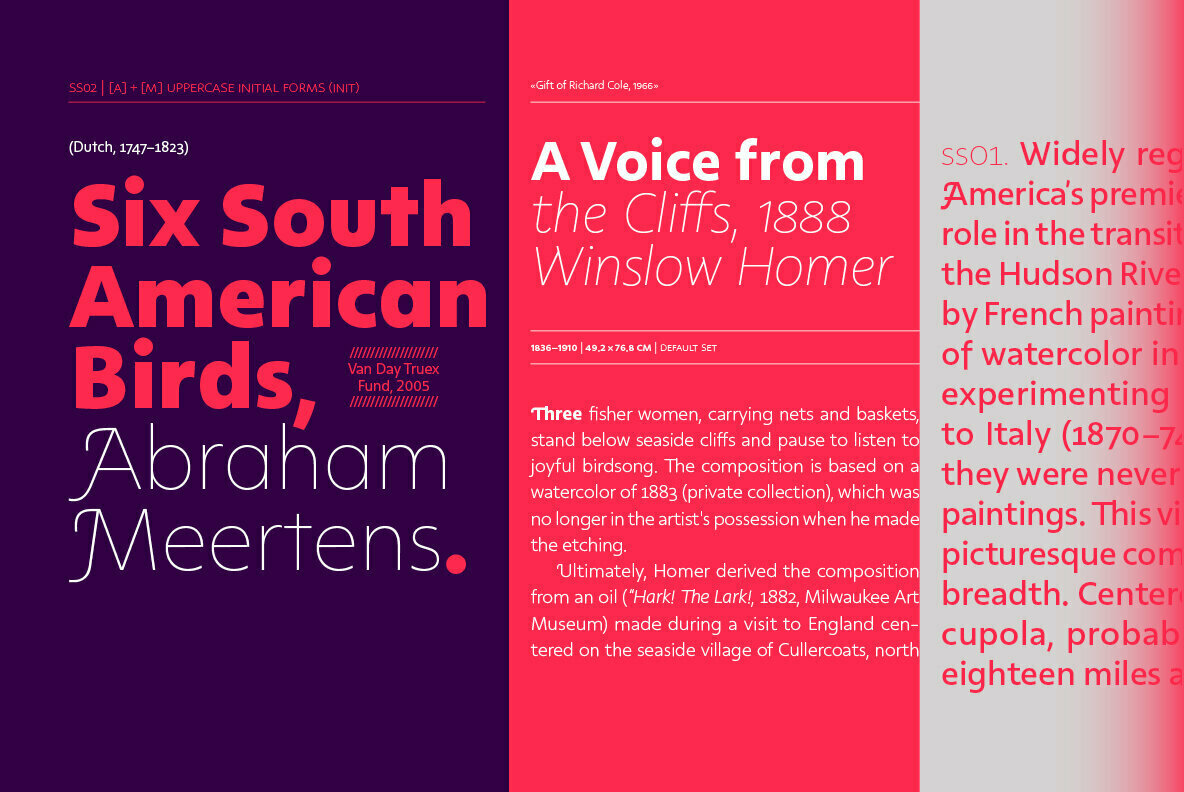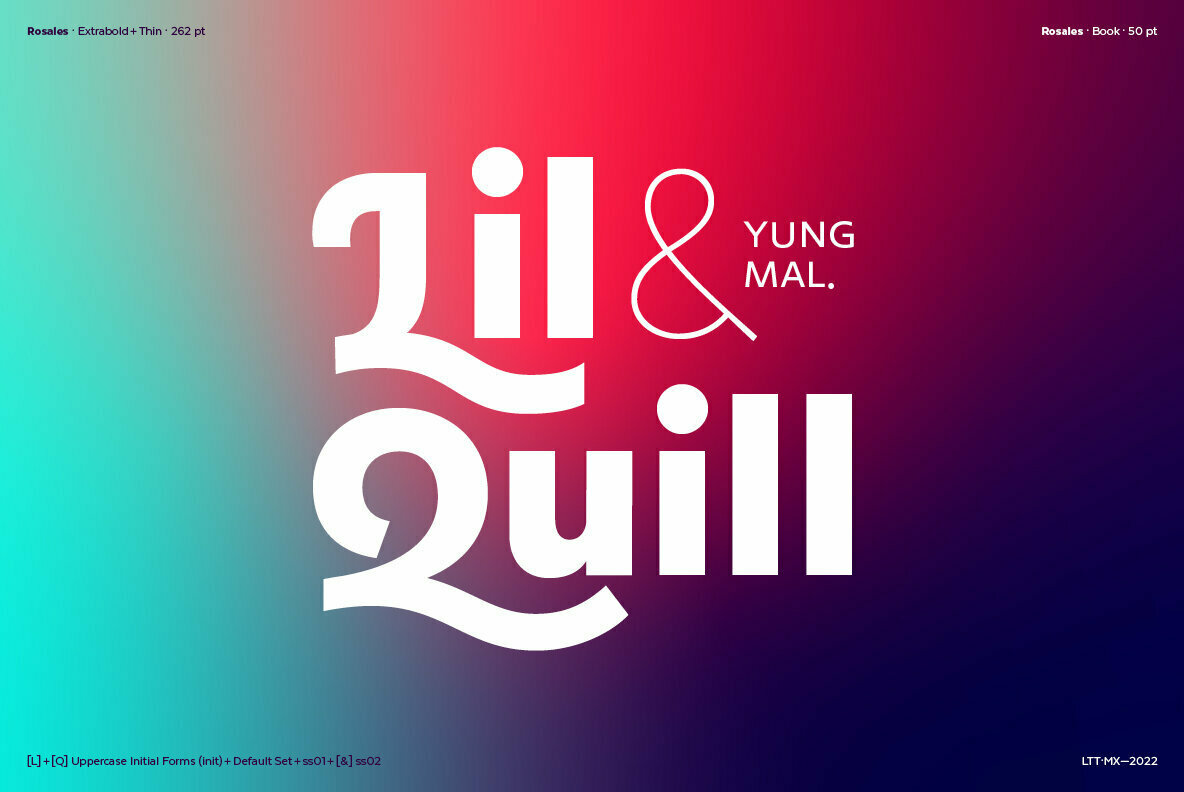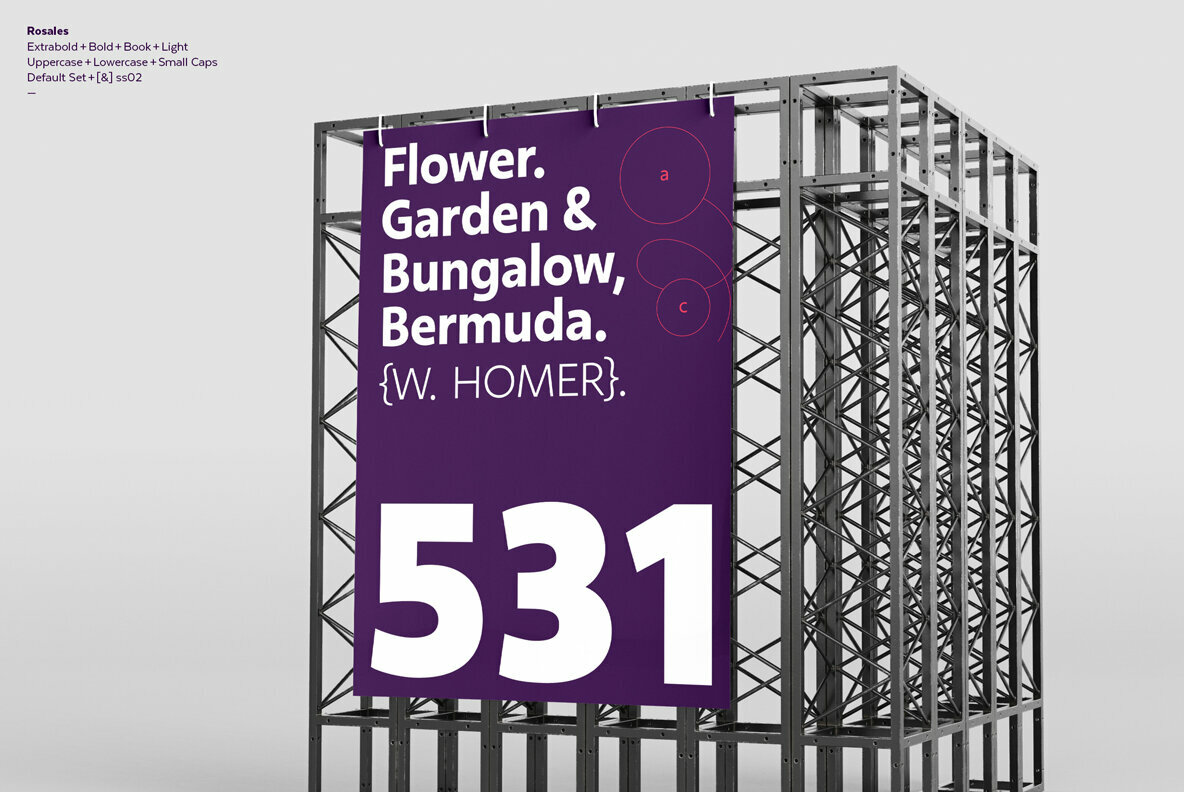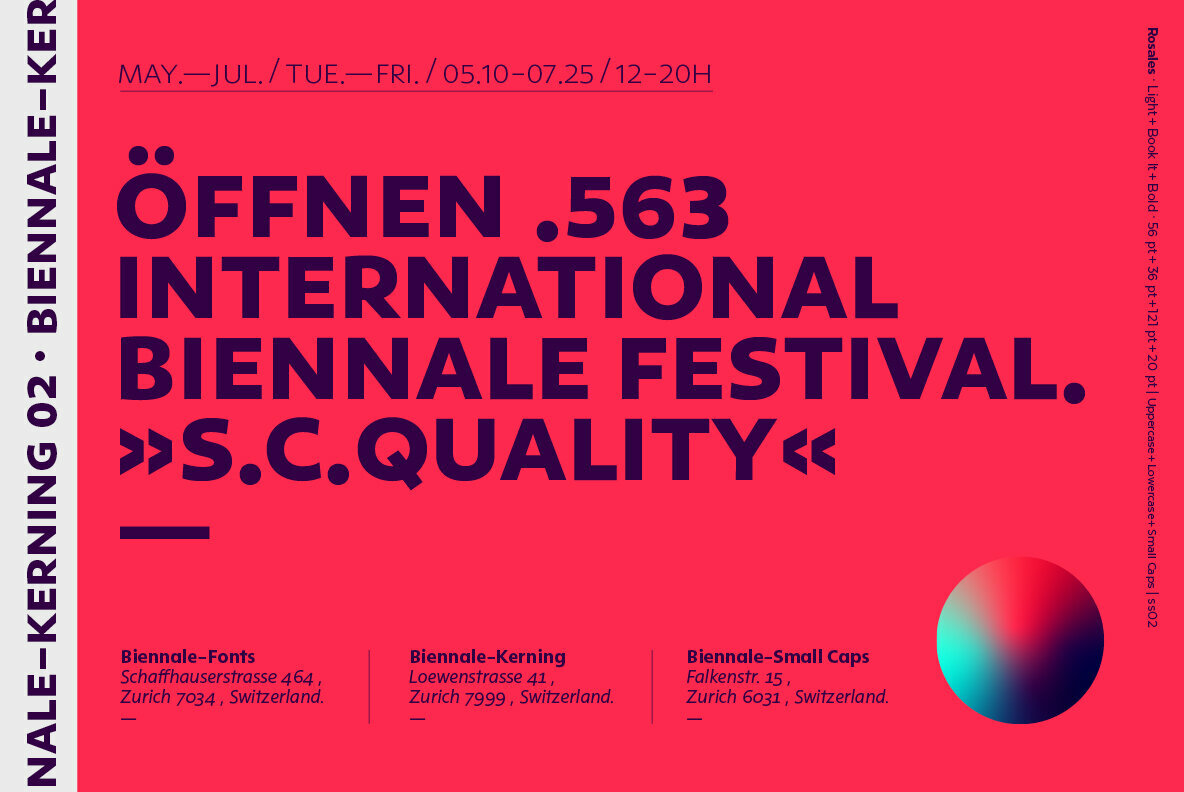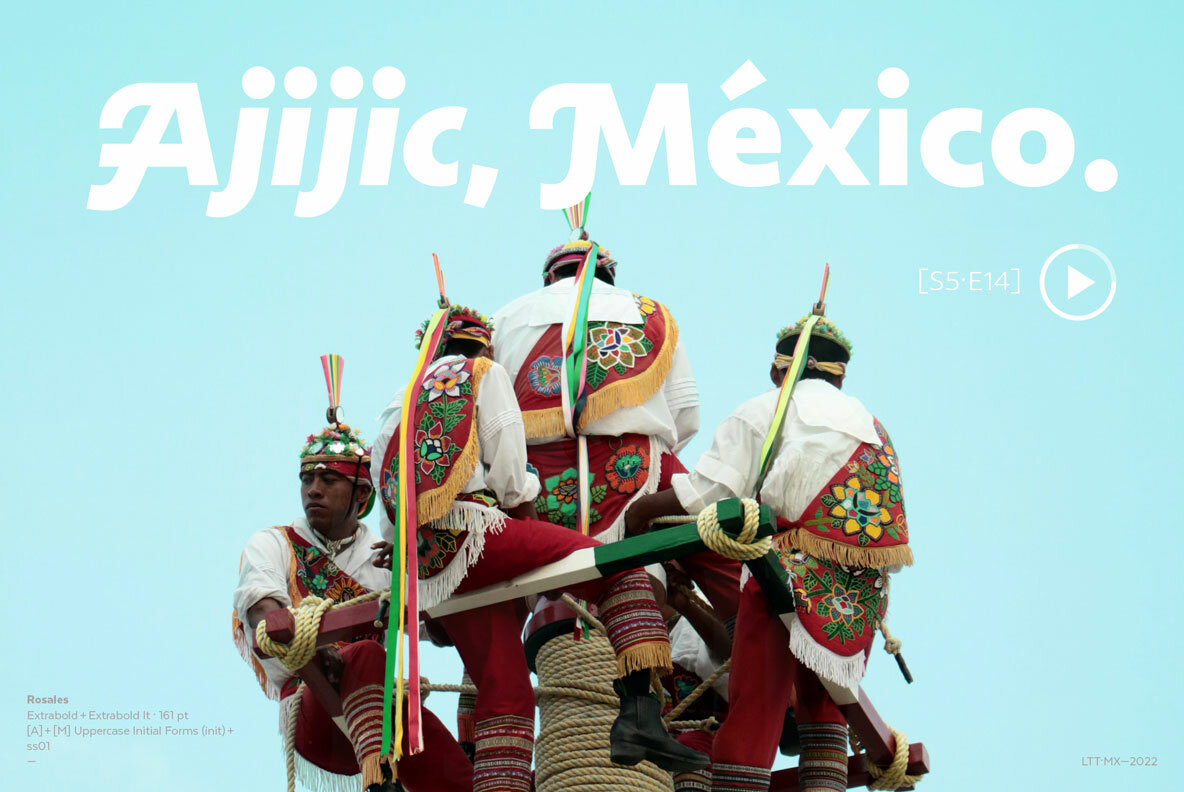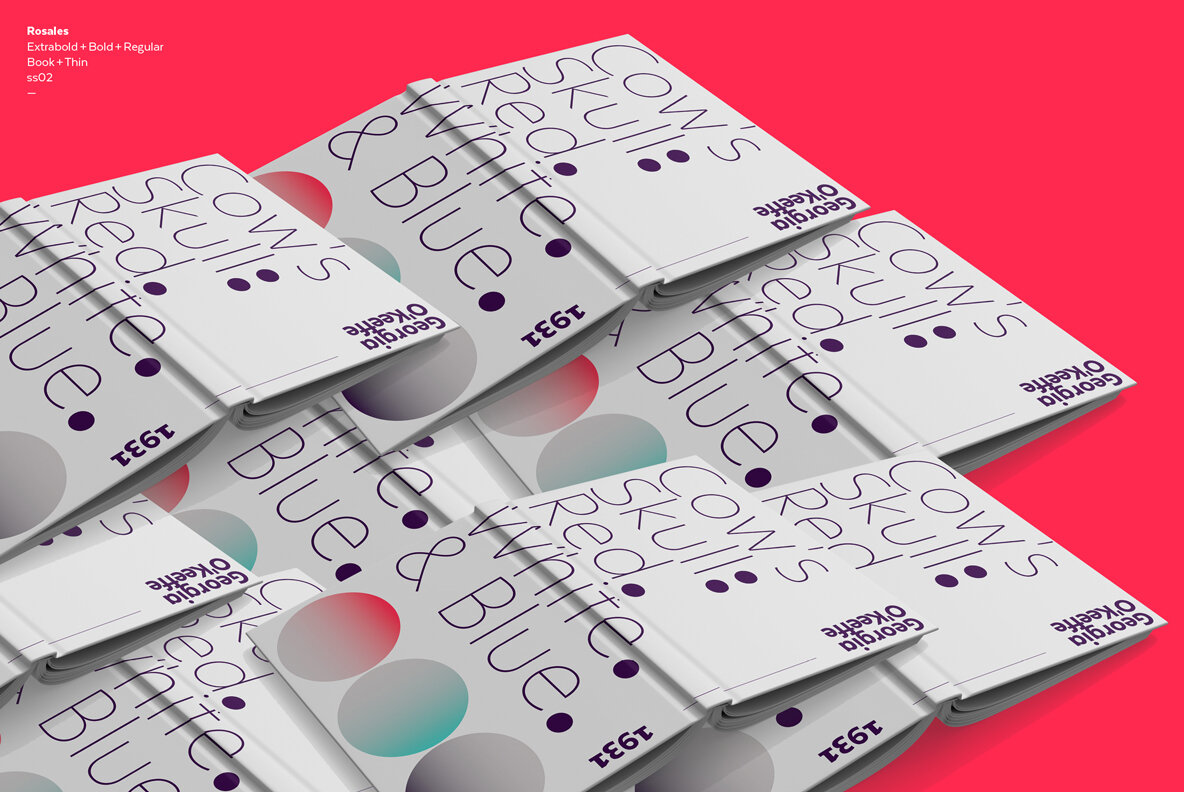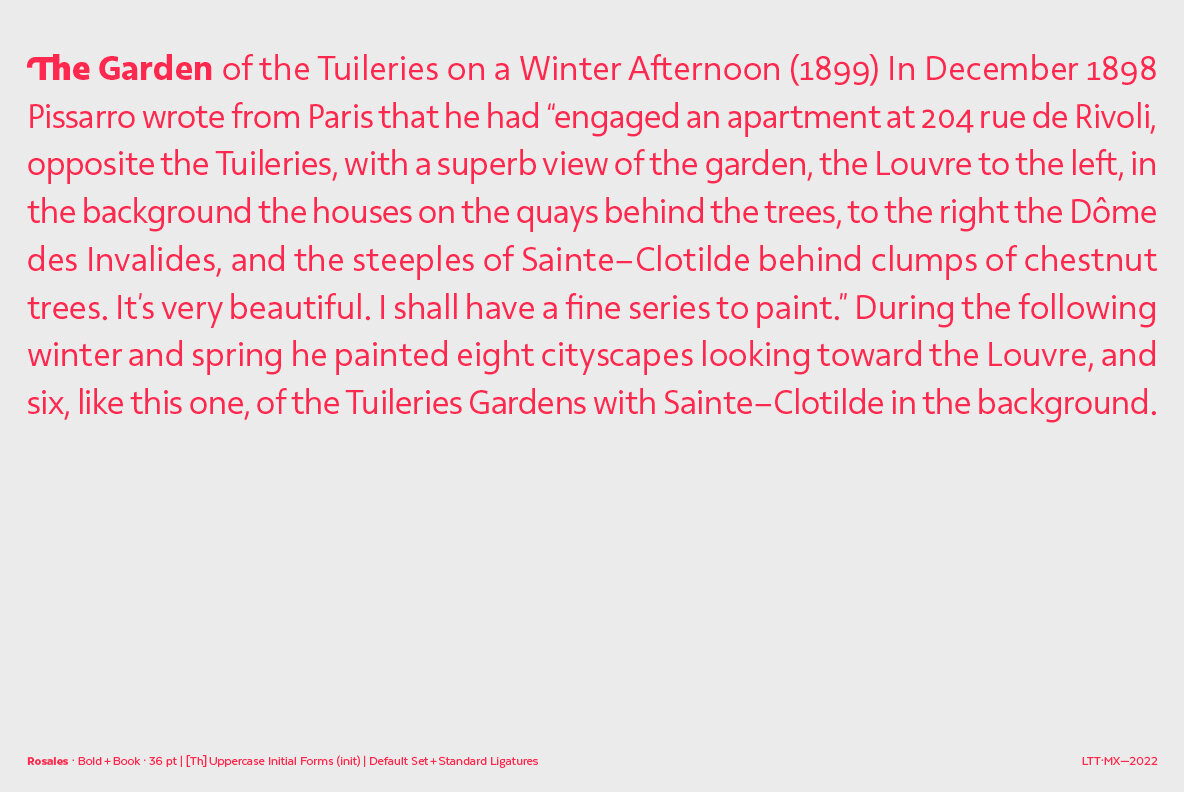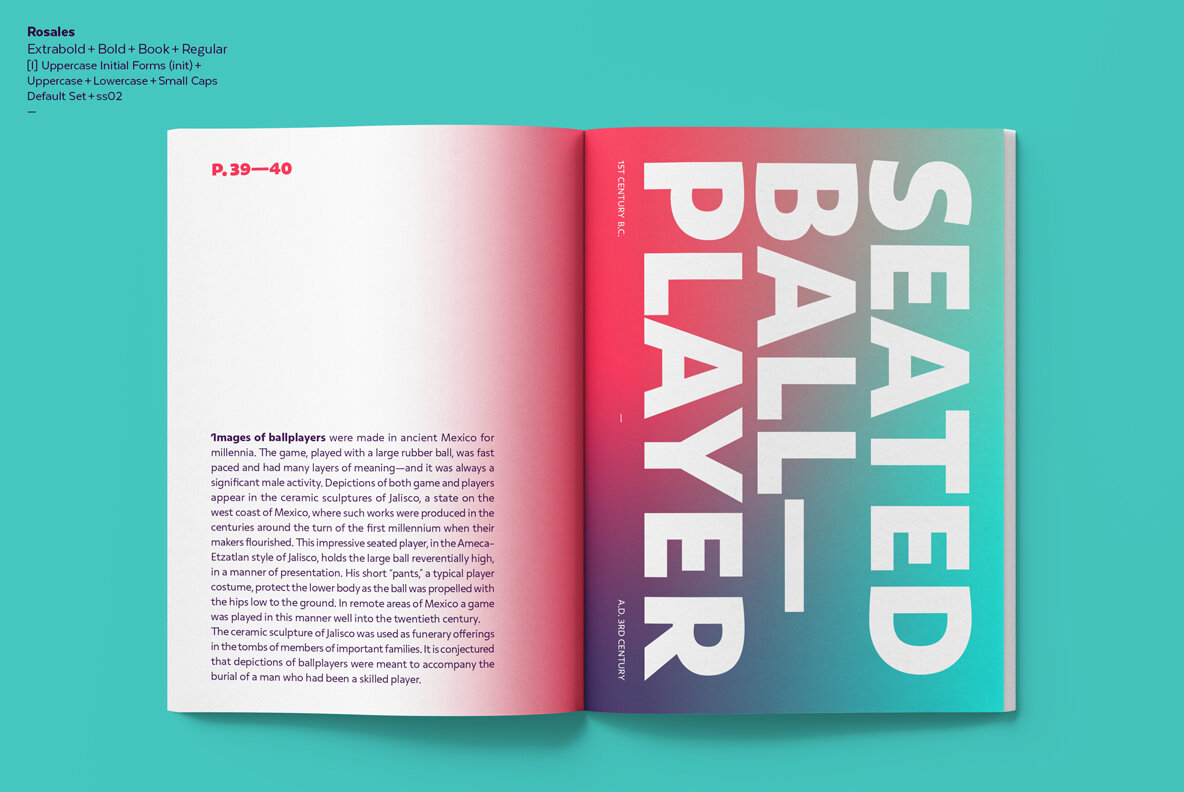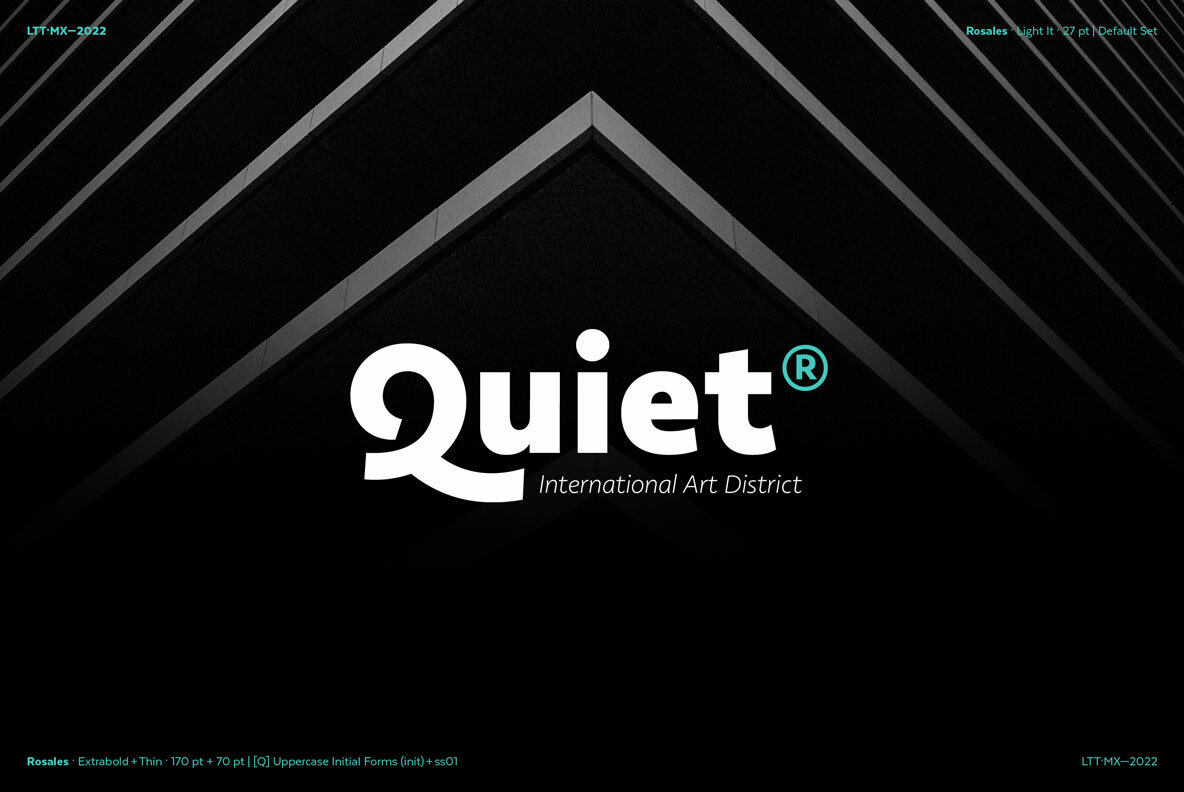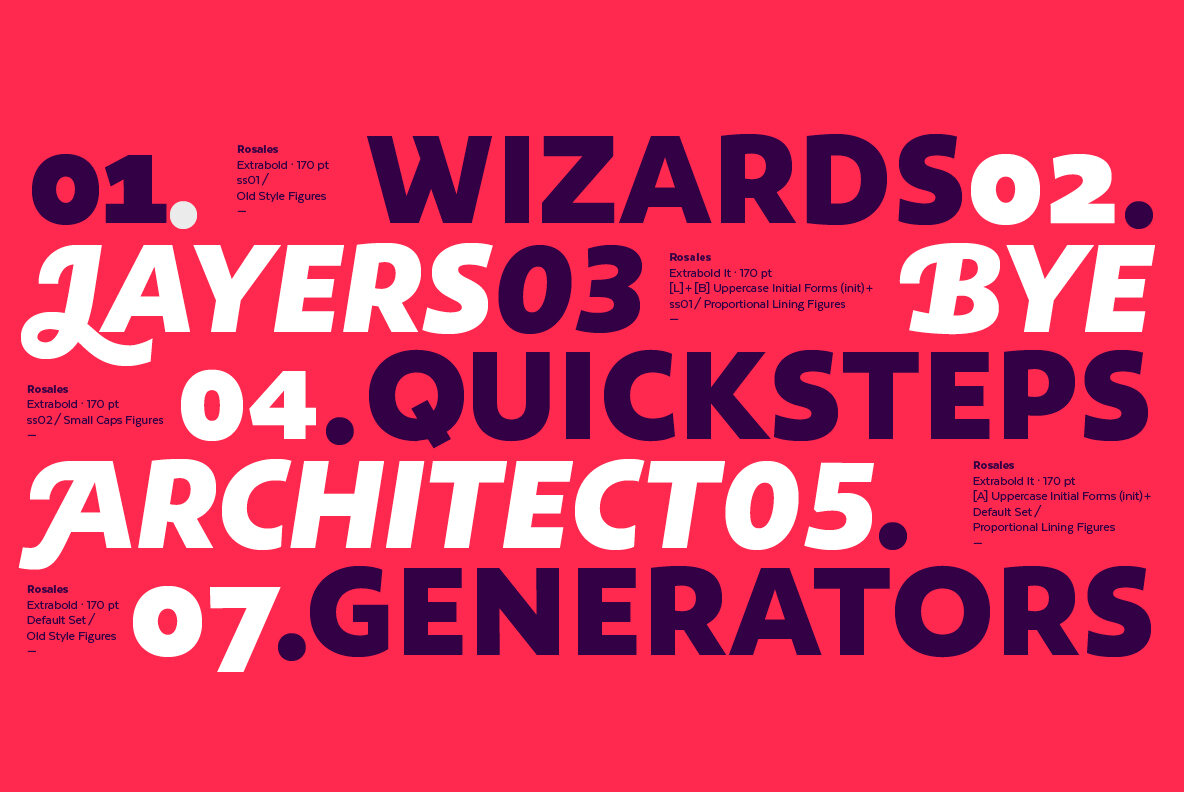
Rosales Font
Rosales integrates humanist style with geometry in a typography highly inspired by calligraphy. It has eight weights in round and italic variants, which also have a set of initial capital letters, small caps, Oldstyle and Lining figures, as well as two stylistic sets that allow for more humanist or more geometric versions. Basically, it covers whatever you’re going to need.
The family’s extreme weights were designed for titles, while the intermediate weights are for texts. The first ones are perfect for displays and logos.